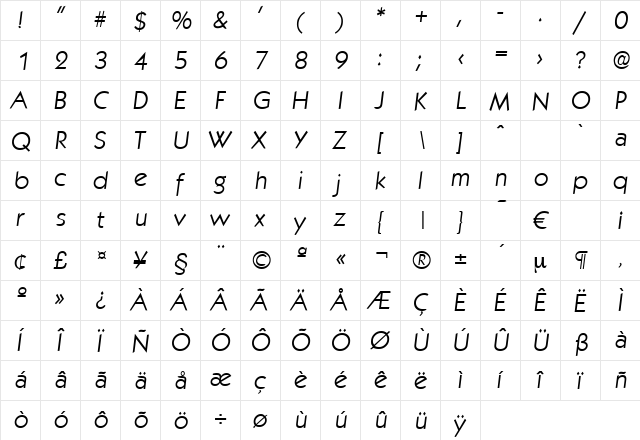
Koblenz-LightIta Regular Font Preview
Koblenz-LightIta Regular
Koblenz-LightIta Regular Font Details
Design Context for Koblenz-LightIta Typeface
Koblenz-LightIta offers clean, dependable letterforms without strong stylistic allegiance, making it a practical choice for designers who need flexibility. The delicate stroke weight brings airiness and refinement to layouts.